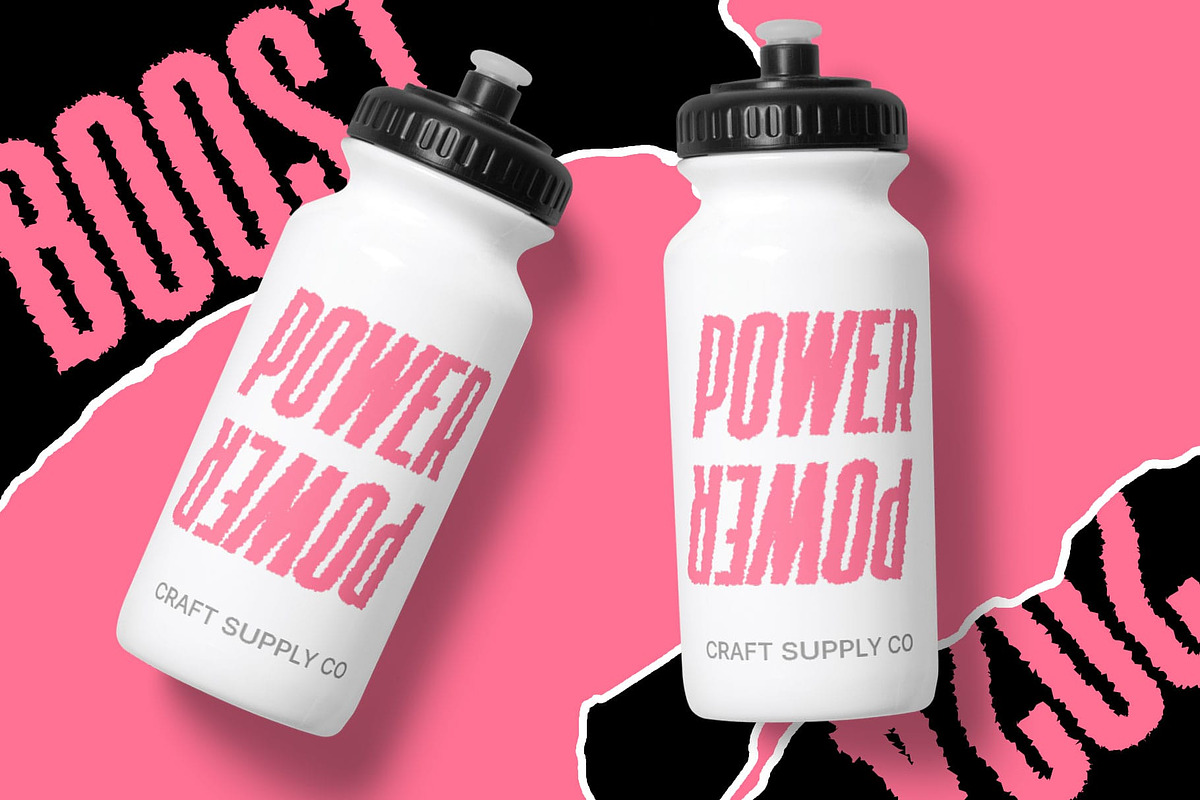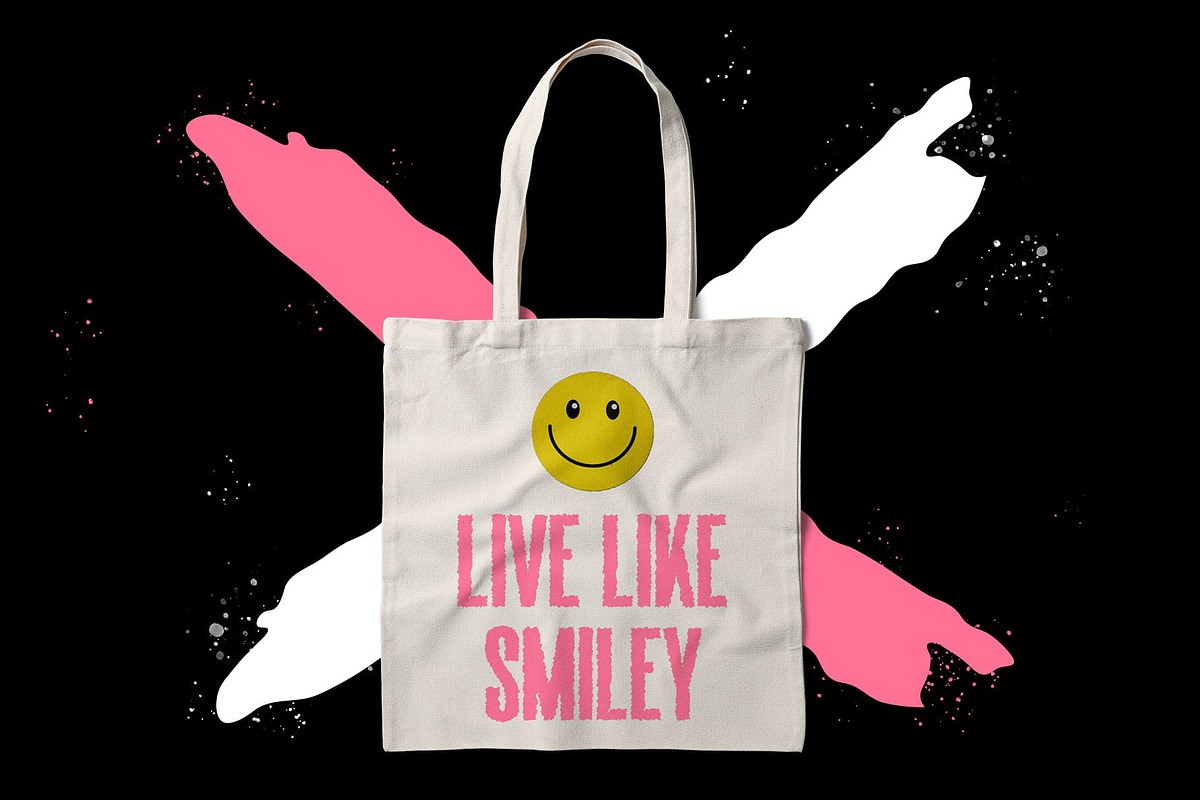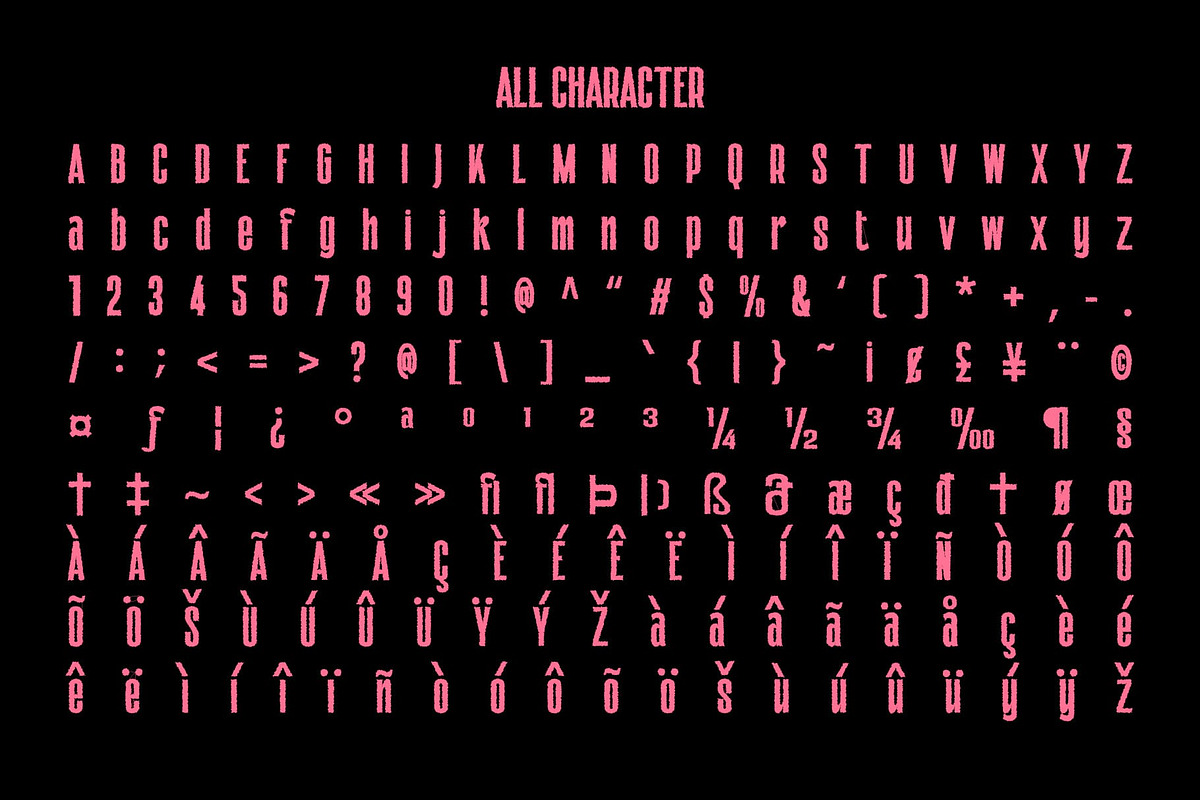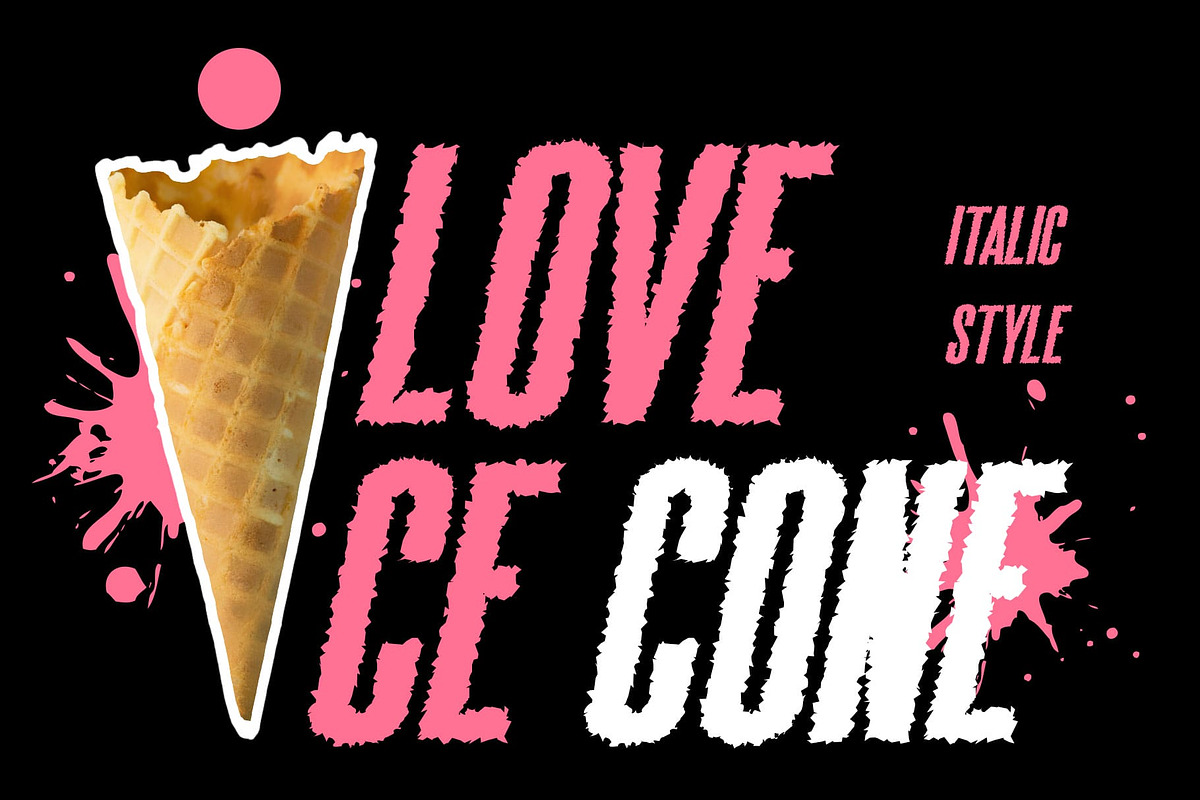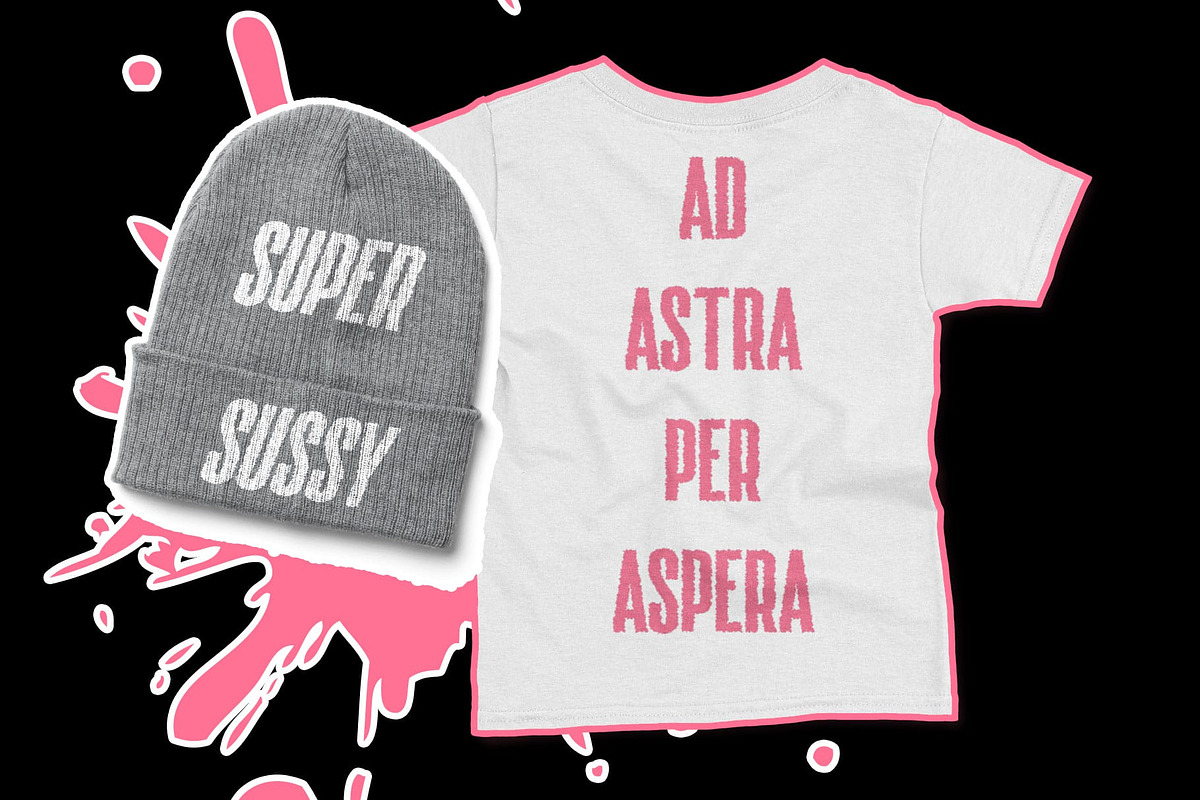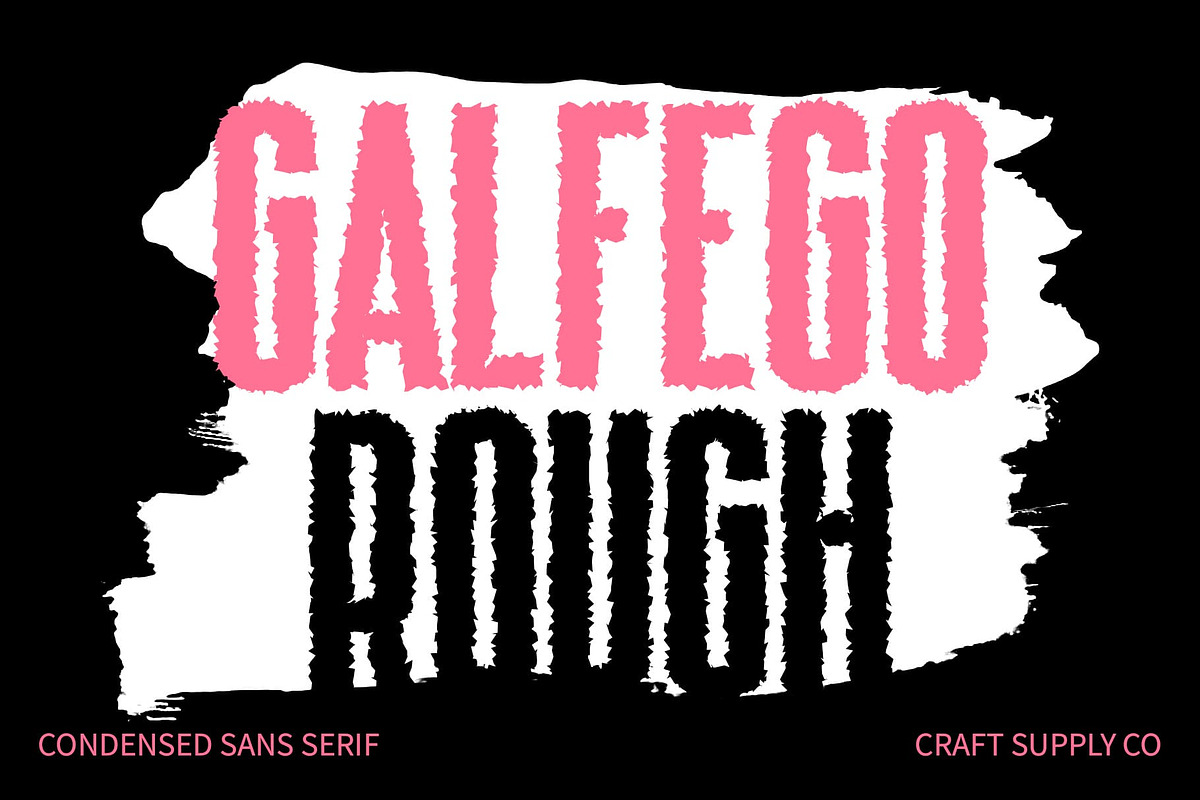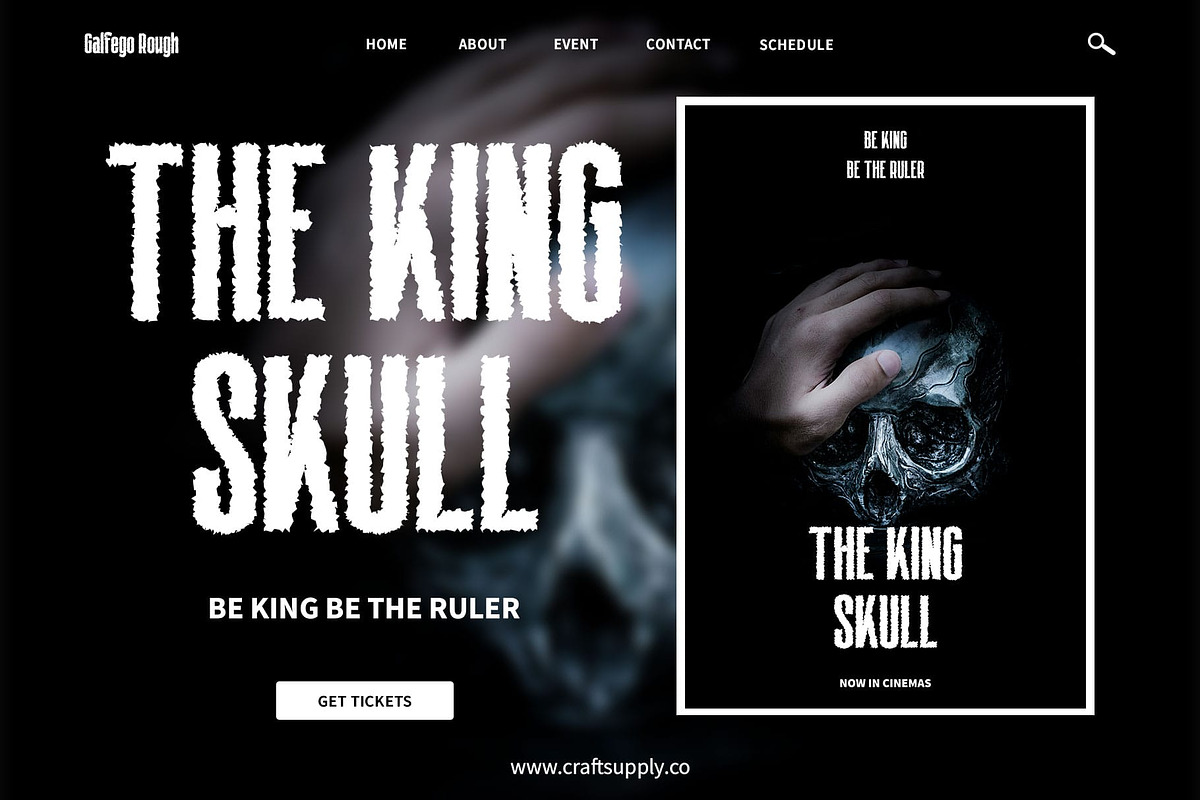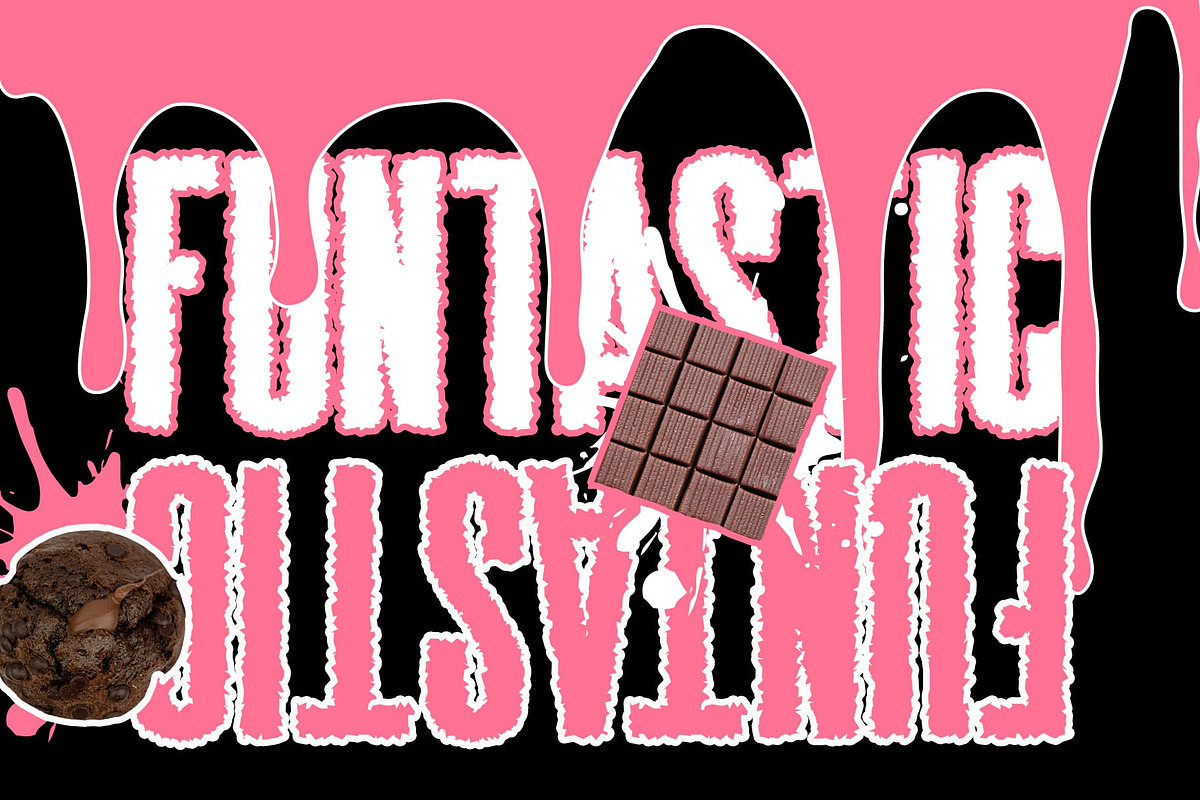
Galfego Rough
Galfego Rough: Vintage Display with a Modern Twist
Compact Sans Serif Design Galfego Rough boasts a compact sans serif design that maximizes space and ensures efficient readability. Its condensed form makes it ideal for impactful headlines and striking displays.
Low Whitespace With minimal whitespace, This font optimizes space usage, allowing for tighter layouts without sacrificing legibility. Its low whitespace design ensures a bold and impactful presence in any design composition.
Rough Effect The font is imbued with a rough effect, lending it a weathered and aged appearance reminiscent of vintage displays. This adds character and depth to each character, enhancing its visual appeal.
Vintage Display Appeal This font combination of condensed sans serif design and rough effect creates a unique vintage display appeal. It exudes nostalgia while maintaining a contemporary edge, making it perfect for retro-inspired projects.
Vintage Charm with Modern Efficiency This font combines the charm of vintage display fonts with the efficiency of modern design. Its compact sans serif form, low whitespace, and rough effect make it a standout choice for designers seeking to evoke nostalgia with a contemporary twist.